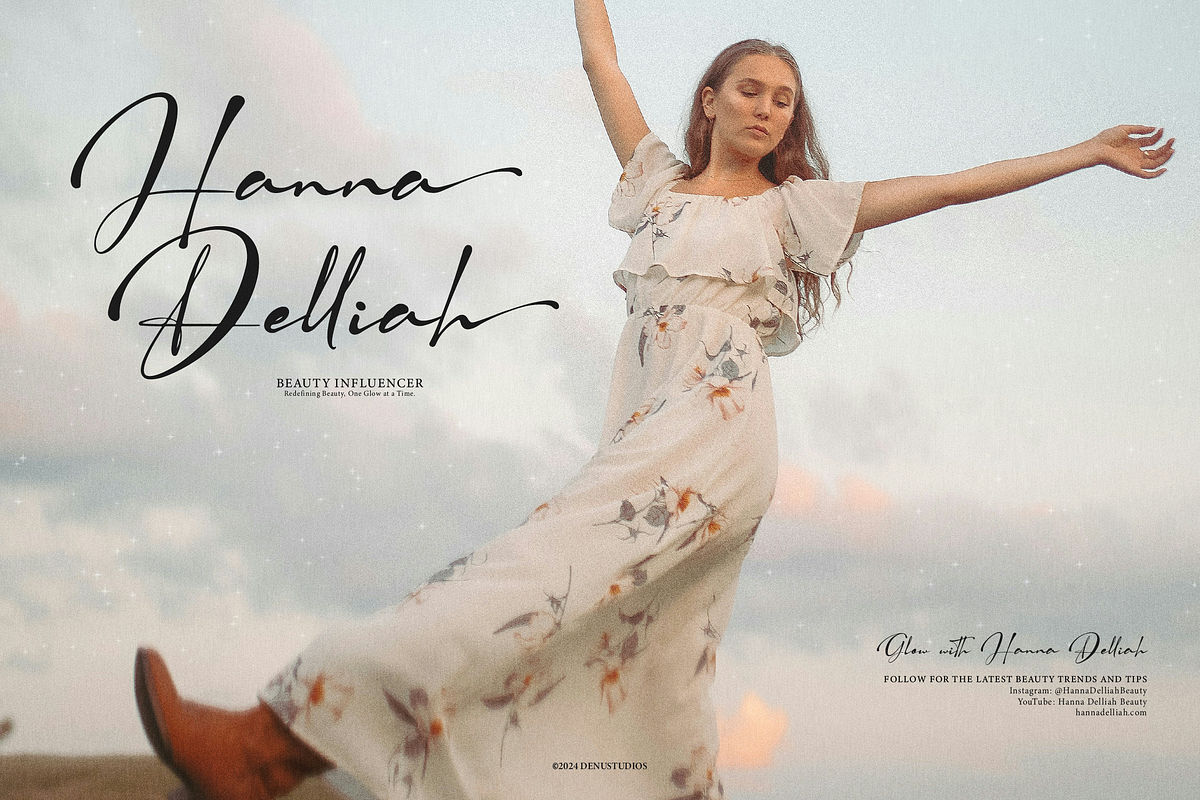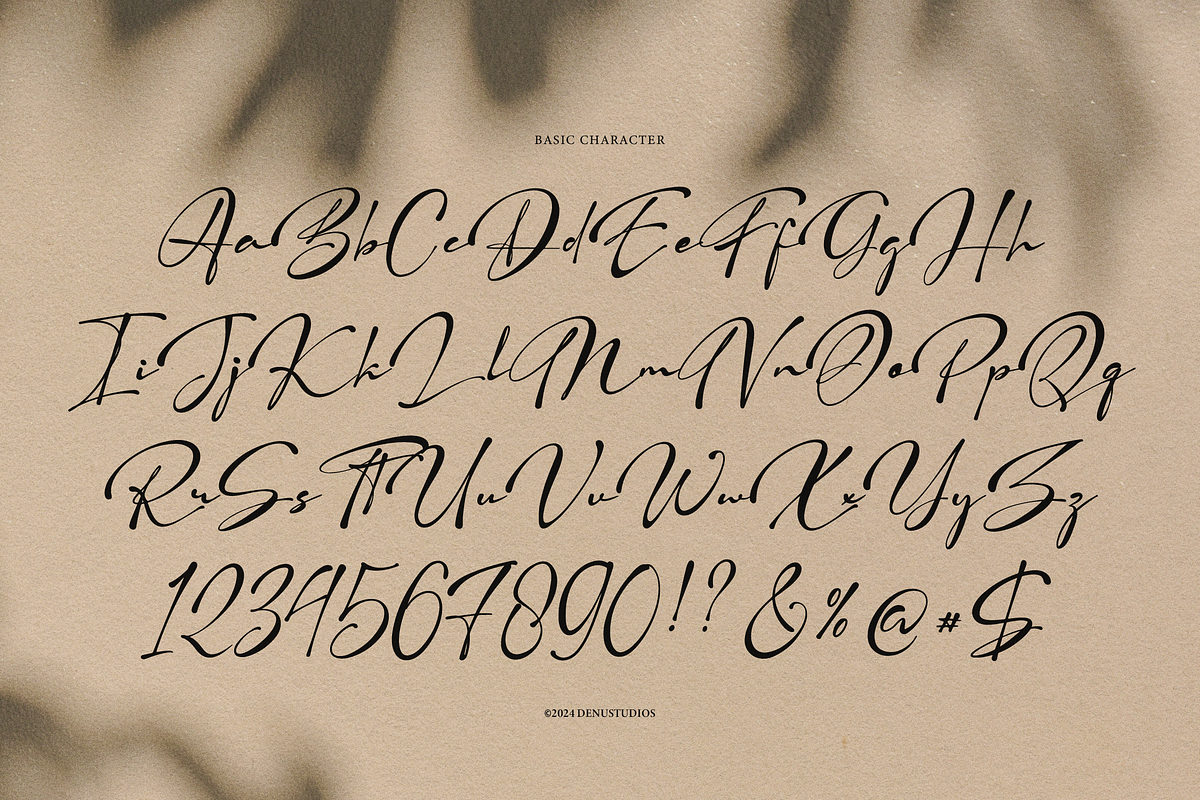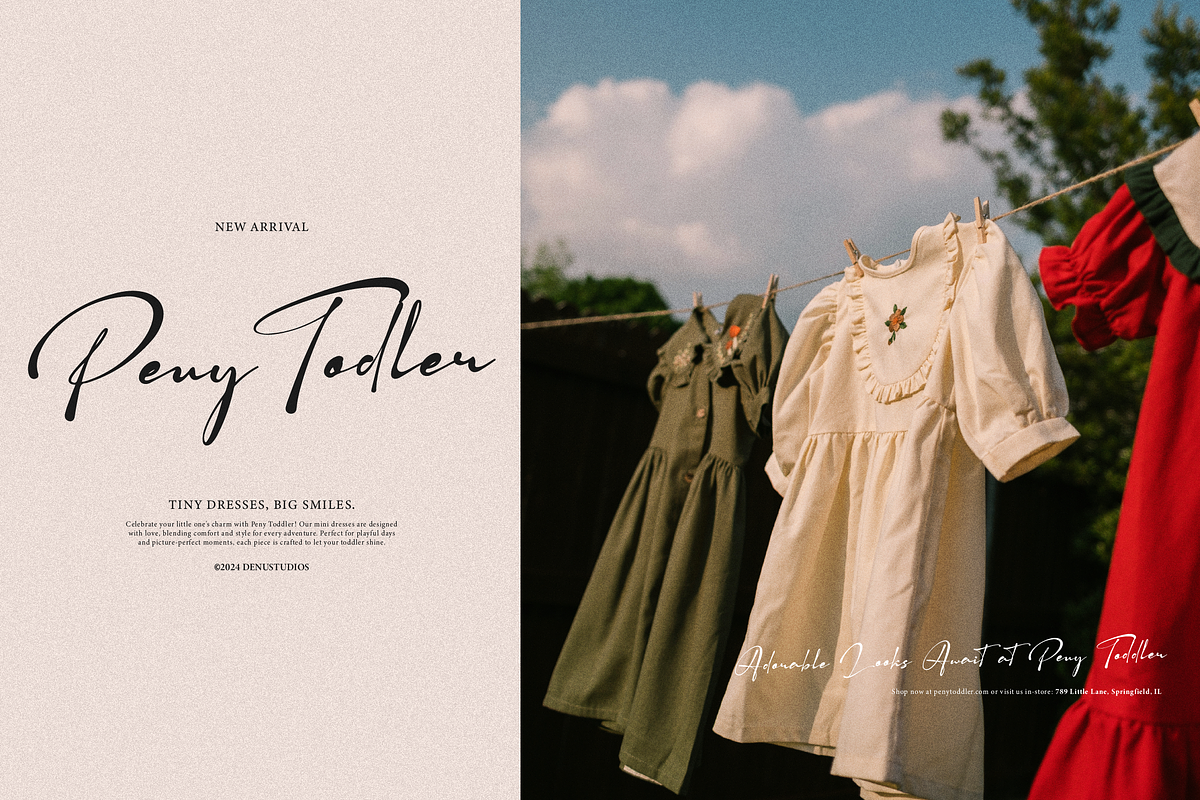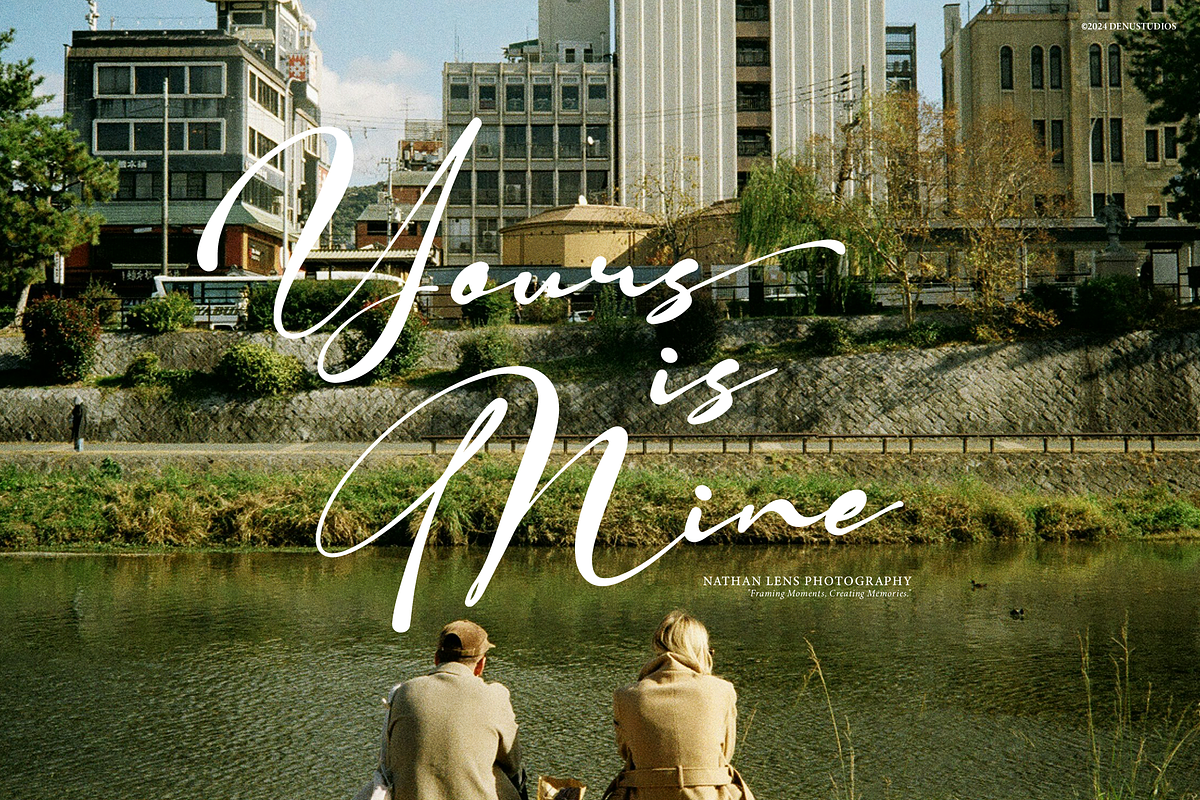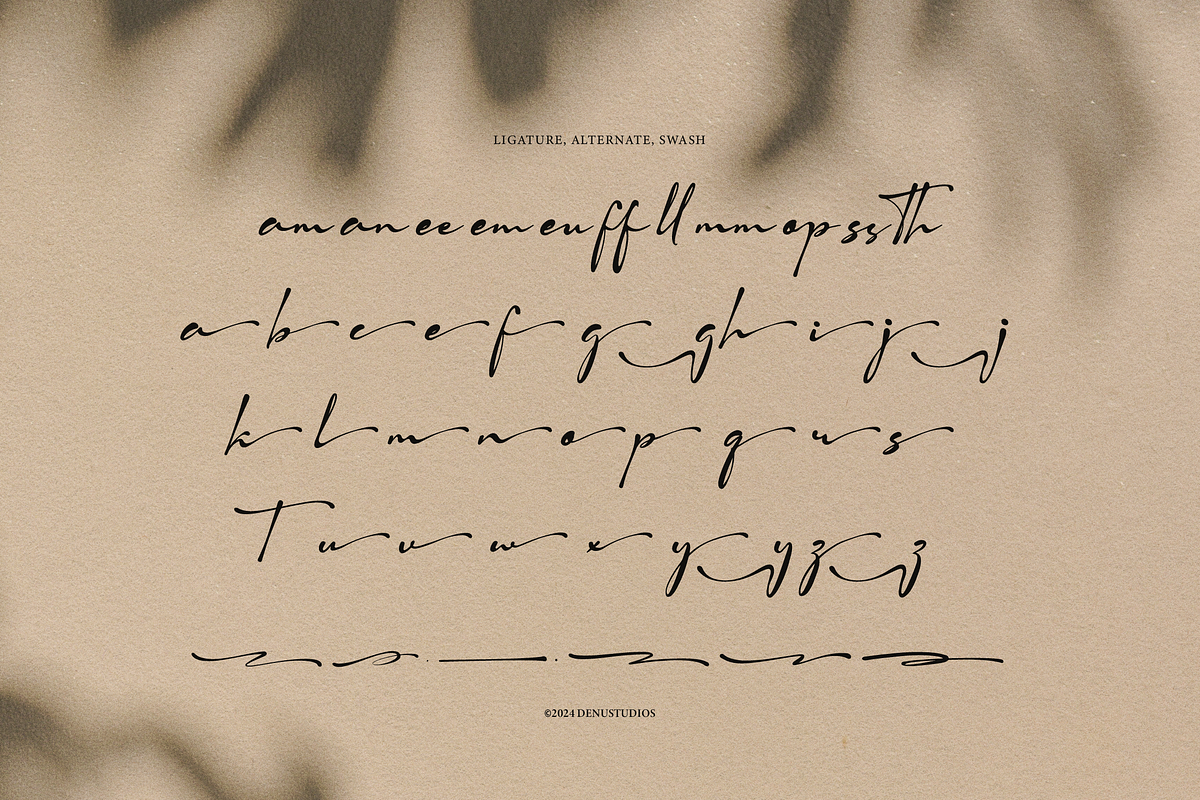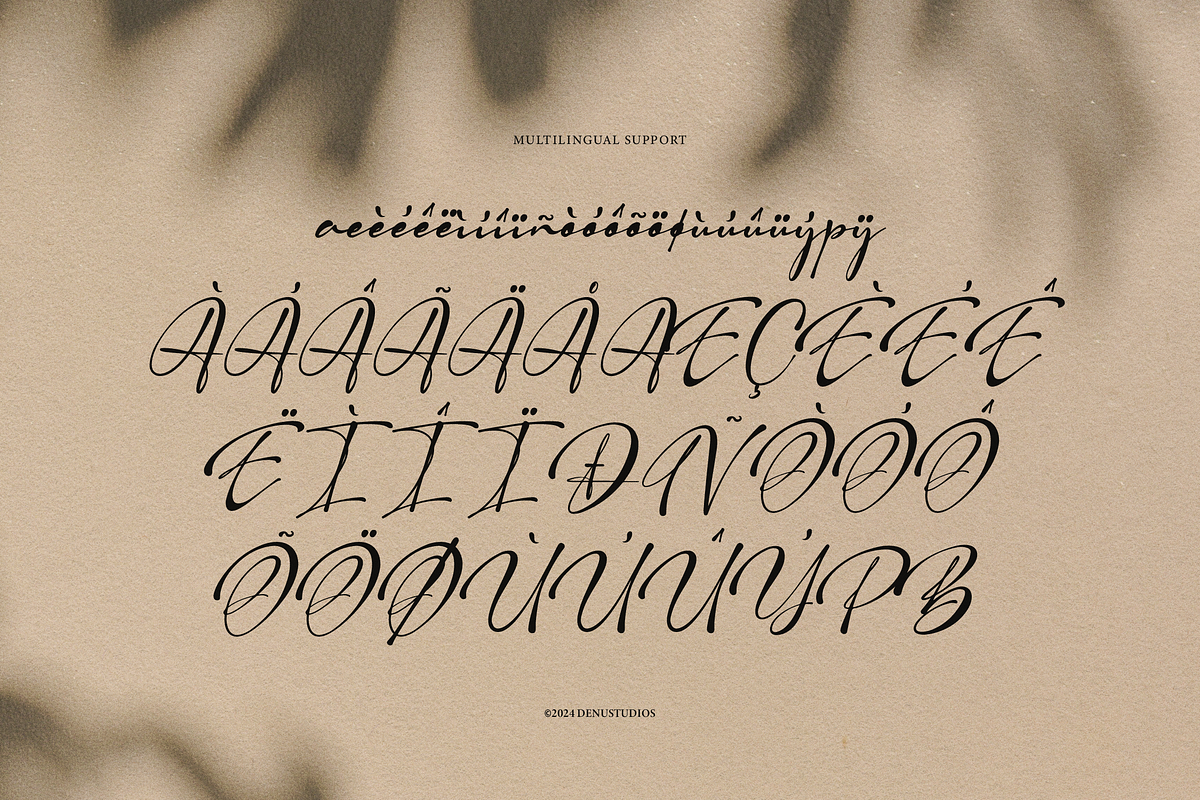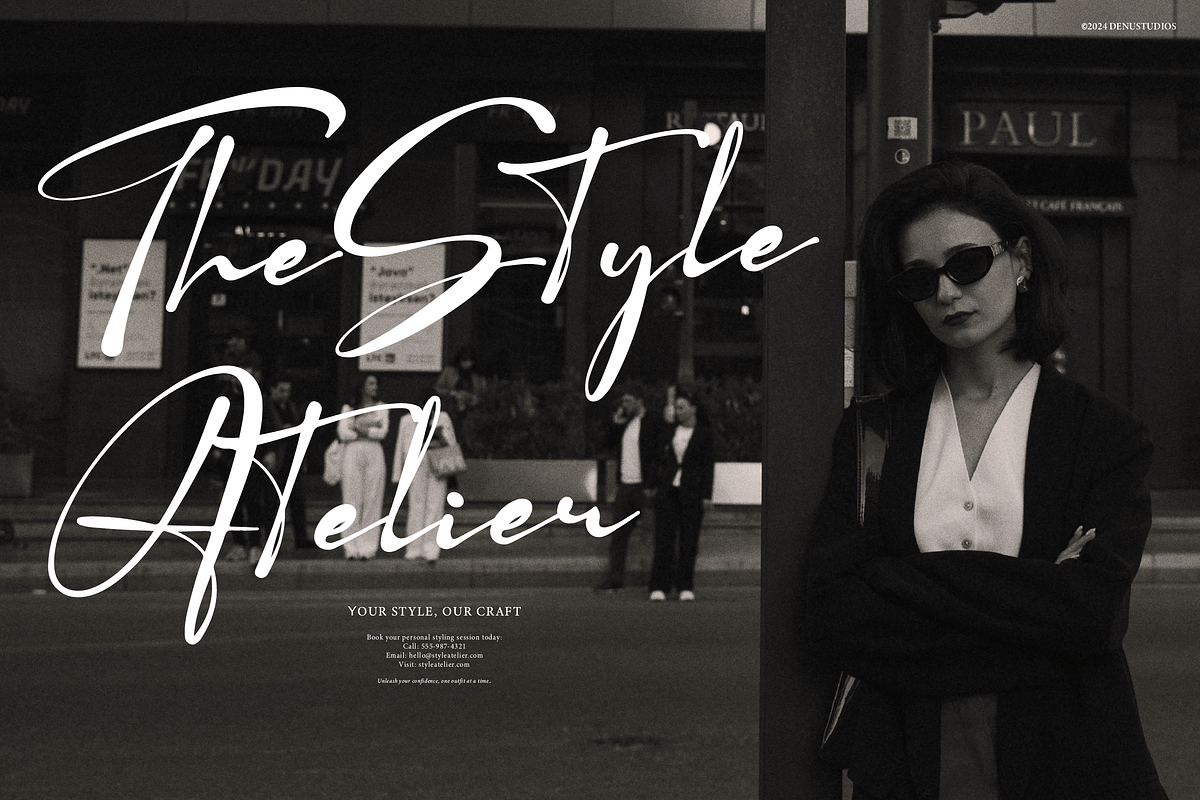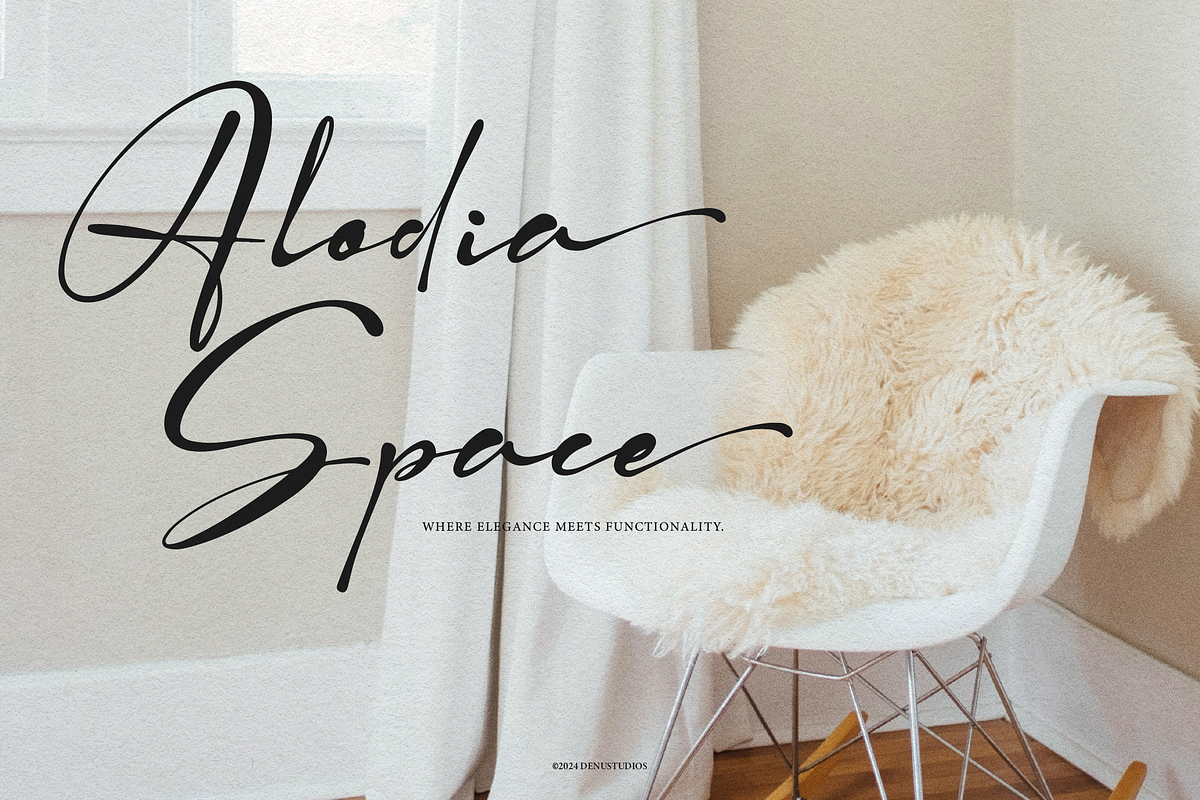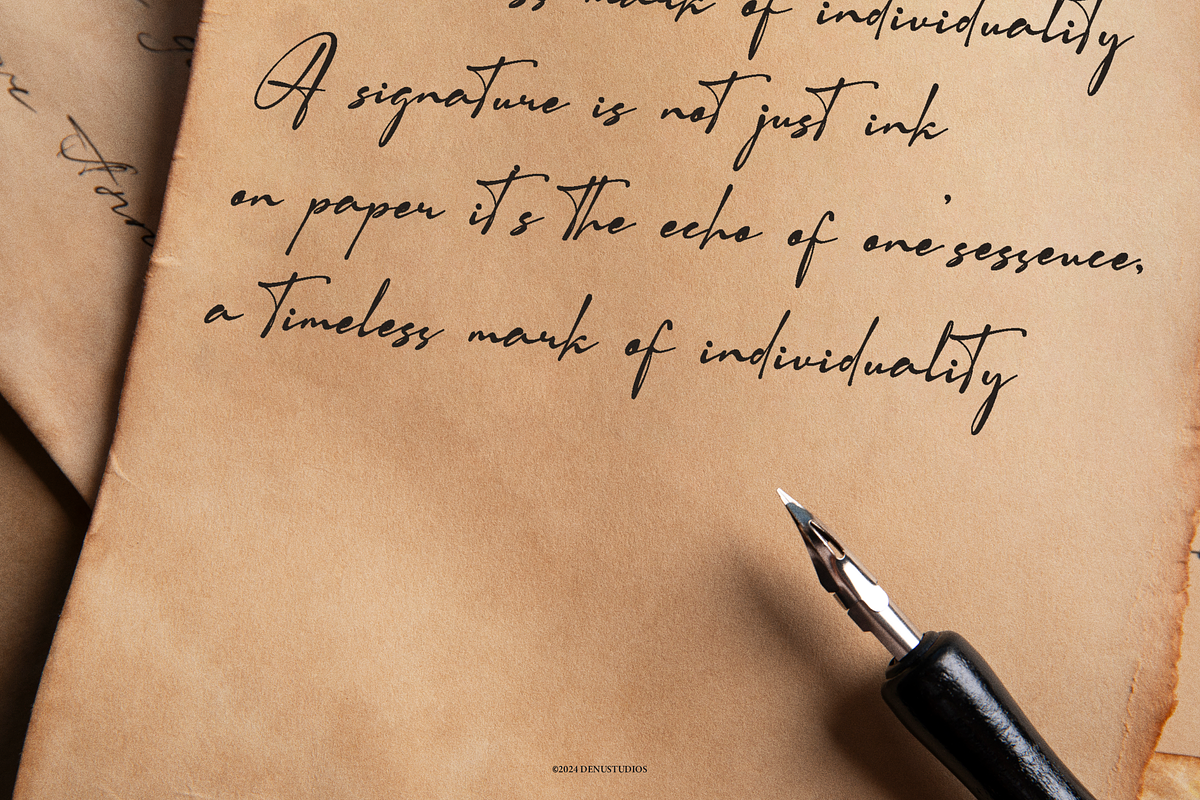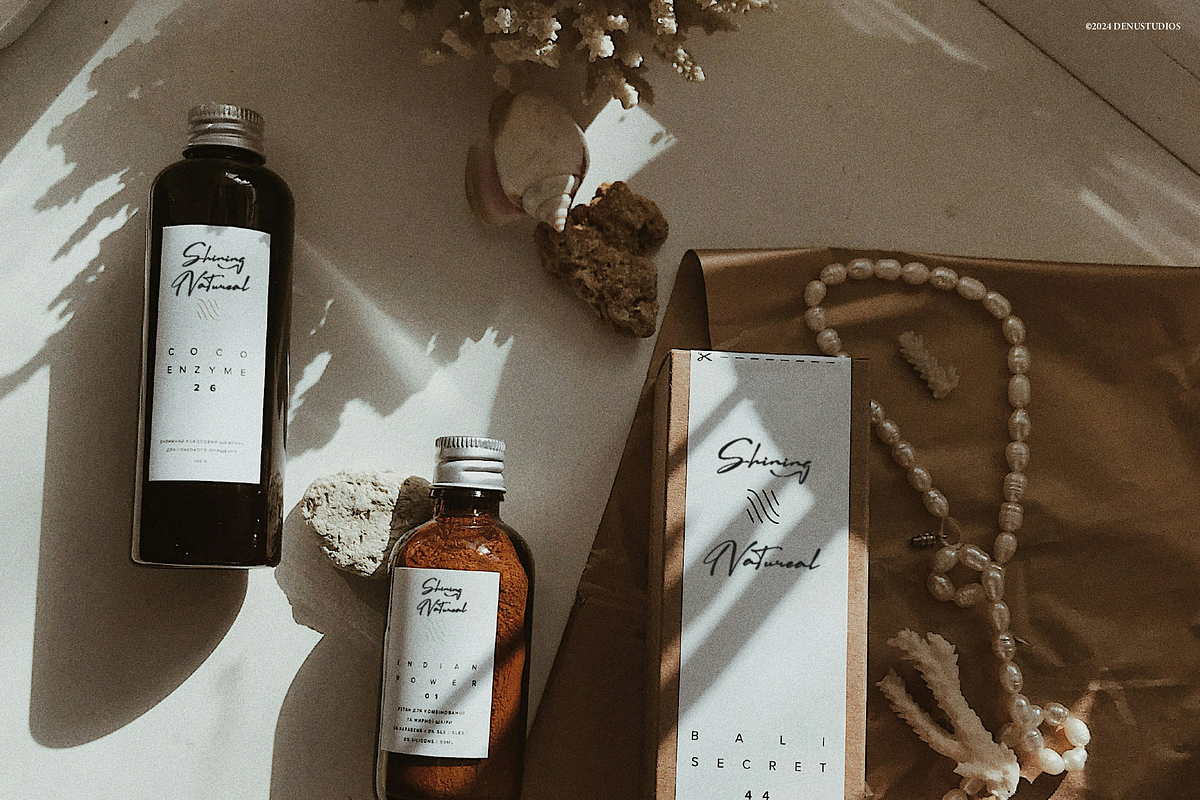
Flentha Bellyora Casual Script Font
Flentha Bellyora | Casual Script Font, from Denustudios, suitable for any projects such as: logos, branding projects, homeware designs, product packaging, mugs, quotes, posters, shopping bags, t-shirts, book covers, name card, invitation cards, greeting cards, label, photography, watermark, special events, and all your other lovely projects that need a Casual Script Font taste.